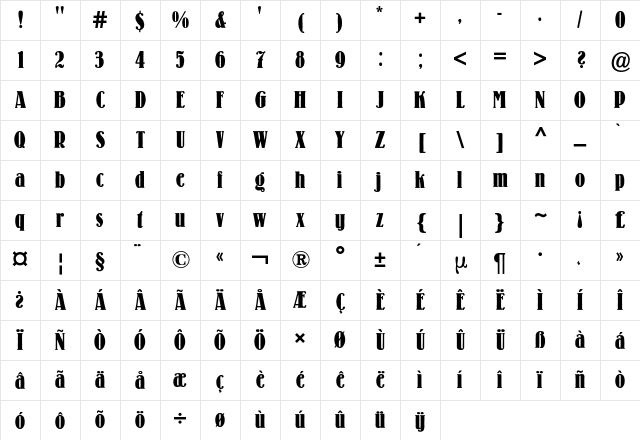
Lo-Type BQ Regular
Lo-Type BQ Family
Lo-Type BQ Regular
Design Context for Lo-Type BQ
Lo-Type BQ is a composed and adaptable typeface that performs quietly and consistently across a wide range of design contexts.
Pro Tip: Use Lo-Type BQ in both headline and body roles to test its range before committing to a single application.